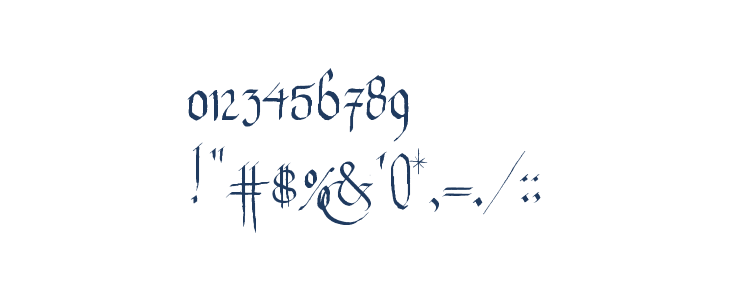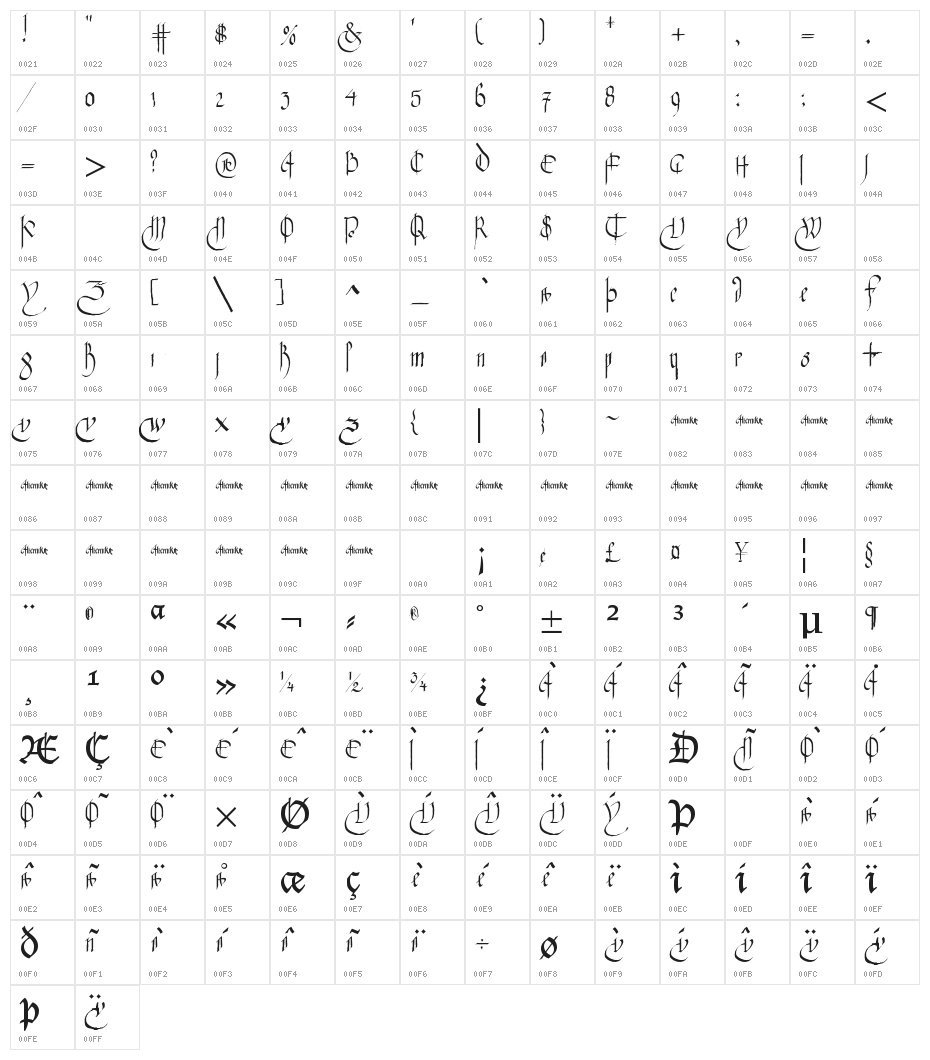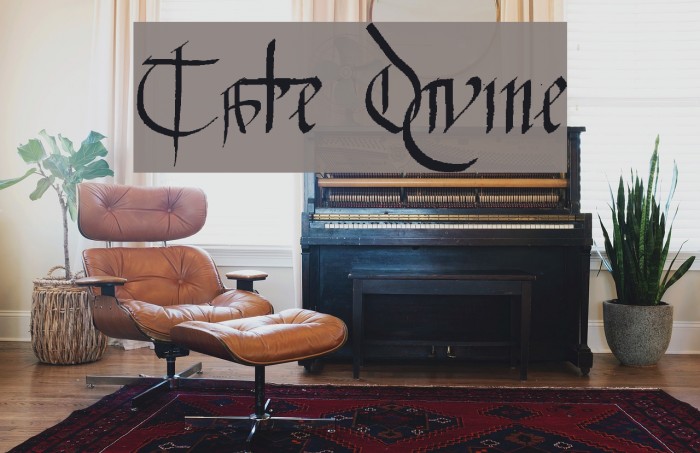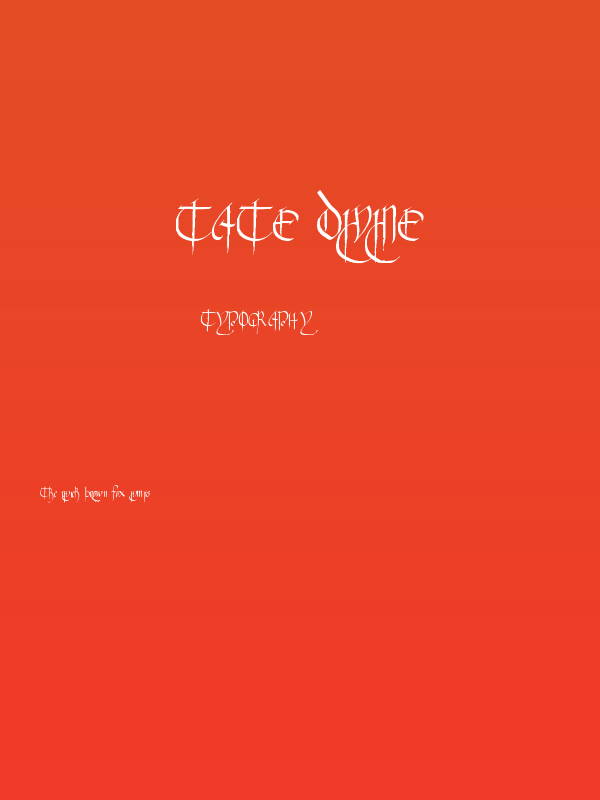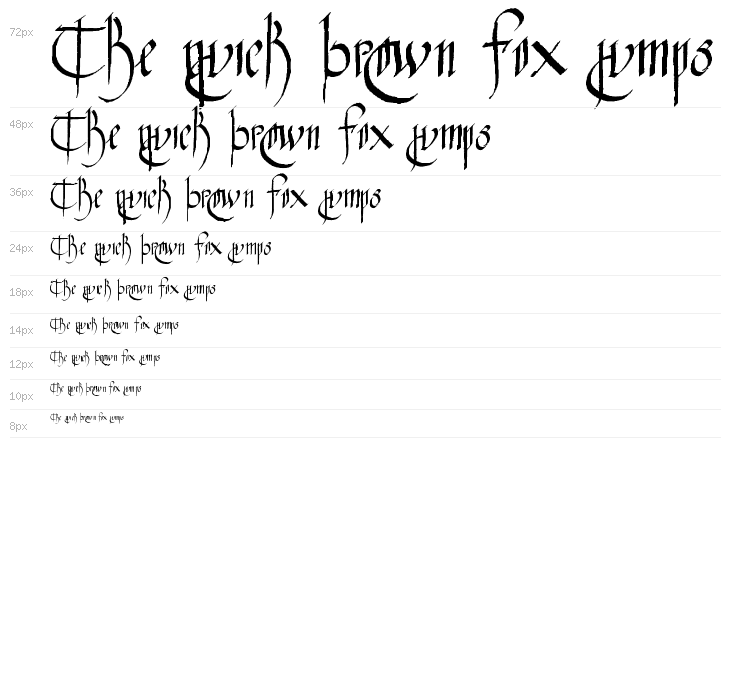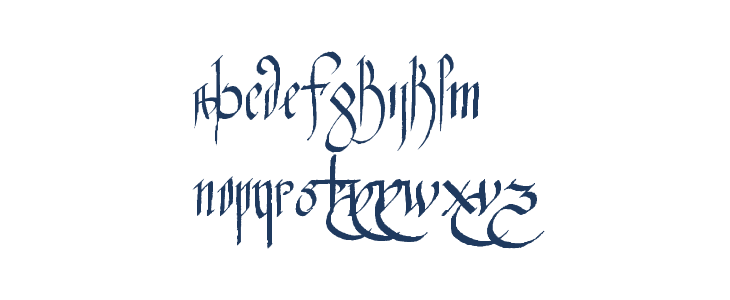
Tate Divine Font
Tate Divine Description
This font exudes a gothic and medieval aesthetic, characterized by its sharp, elongated strokes and intricate detailing. The uppercase letters are particularly ornate, with dramatic flourishes and pointed serifs that give a sense of grandeur and formality. The lowercase letters maintain a consistent style, though they are slightly more subdued, allowing for readability while still retaining the decorative elements. Numbers and special characters follow the same stylistic cues, ensuring a cohesive appearance across all glyphs. The overall impression is one of elegance and historical richness, making it suitable for projects that require a touch of antiquity and sophistication.
| Proposed Projects | Ideal for historical themed designs, book covers, invitations, and branding that requires a touch of elegance and antiquity. |